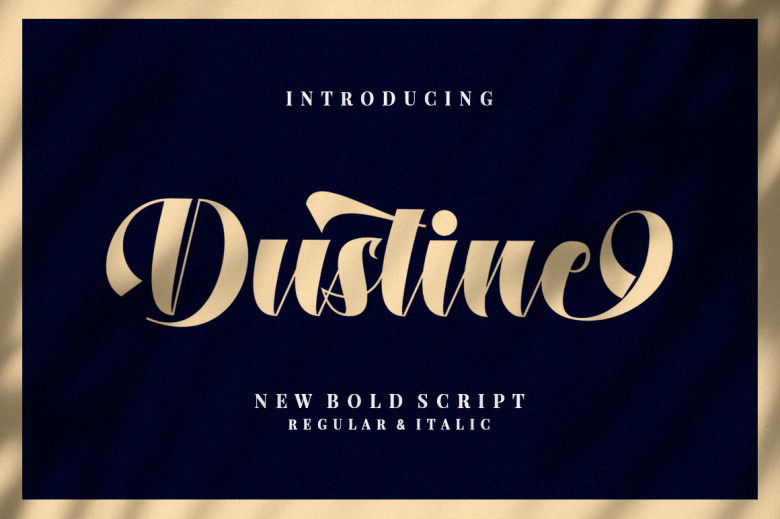
Dustine Font
Dustine is a Extraordinary and courageous script suitable for numerous designs. Fall in love with the playful look & feel!
Dustine Script Font